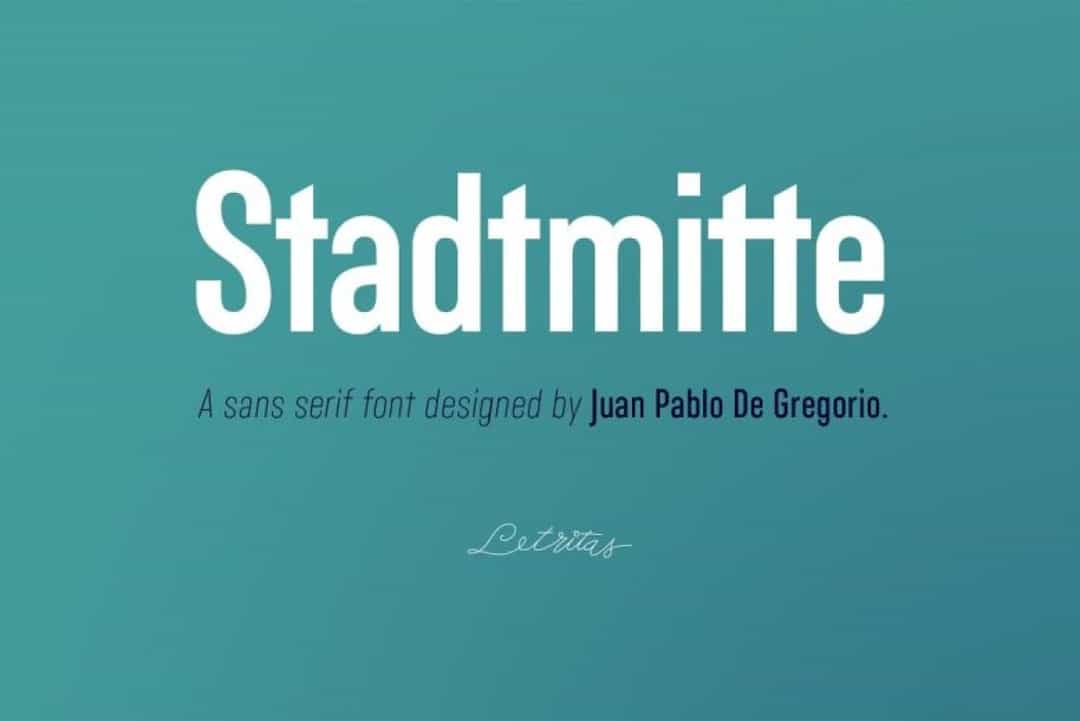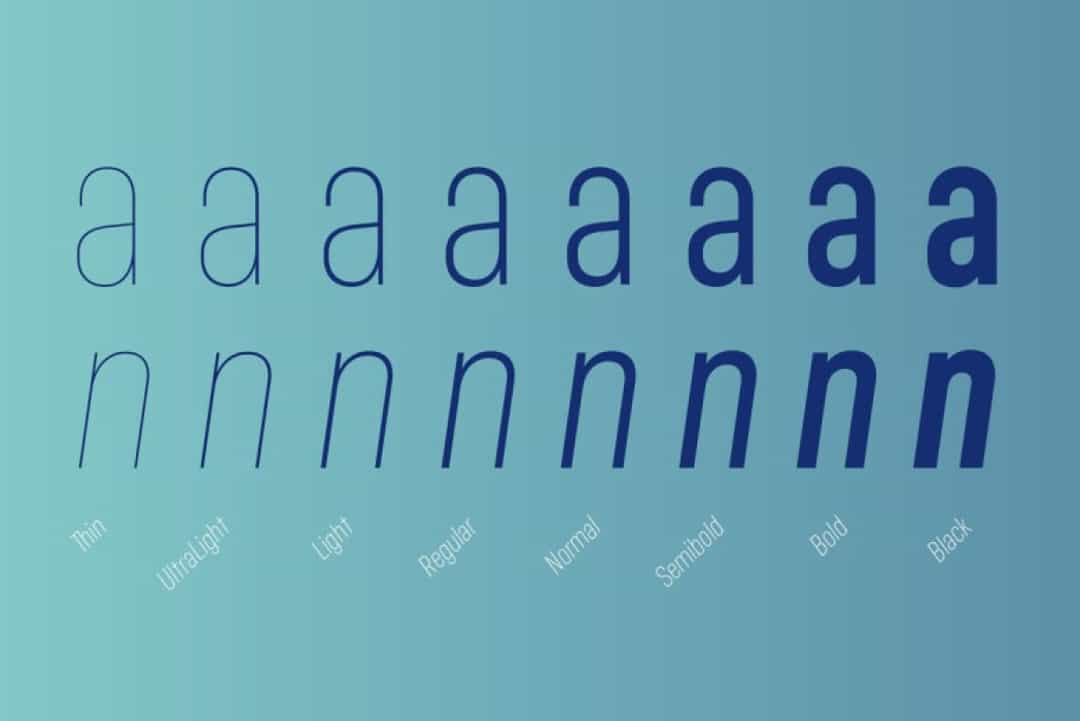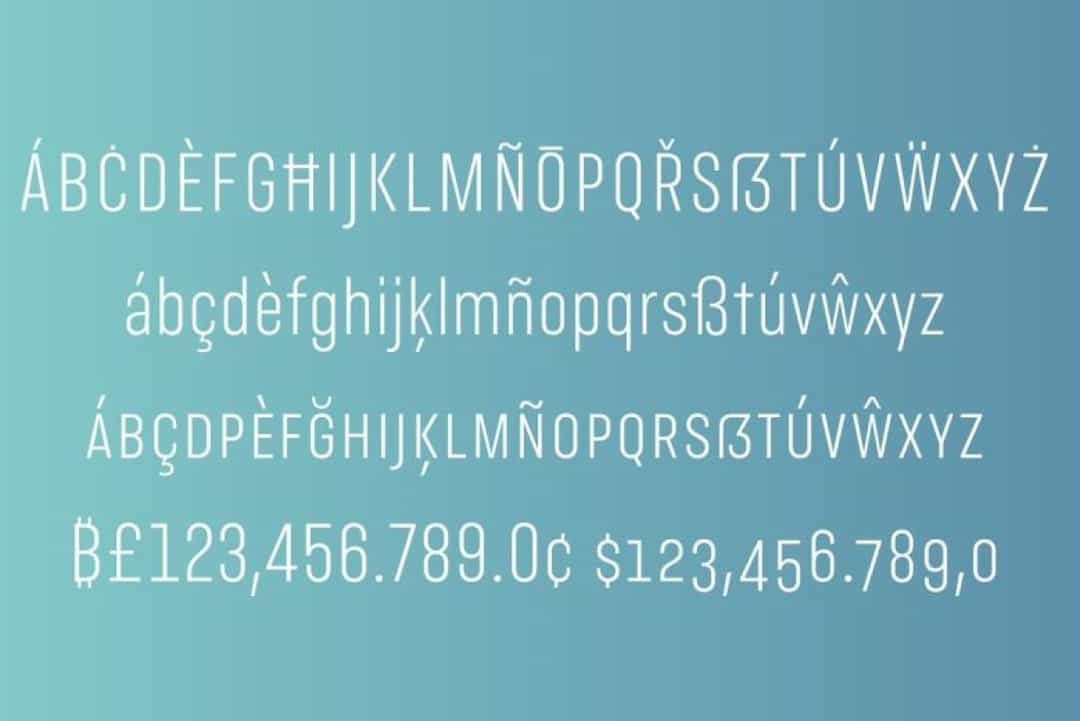
StadtMitte is an industrial font designed to have an urban edge. It was inspired by a reinterpretation of Berlin’s vernacular signage and characters created according to DIN 1451 standards in the early 1900s by sign makers and painters from Germany who started using this style for freight railway font drawings before spreading quickly across highway signs by 1936 when adopted as an industry standard.